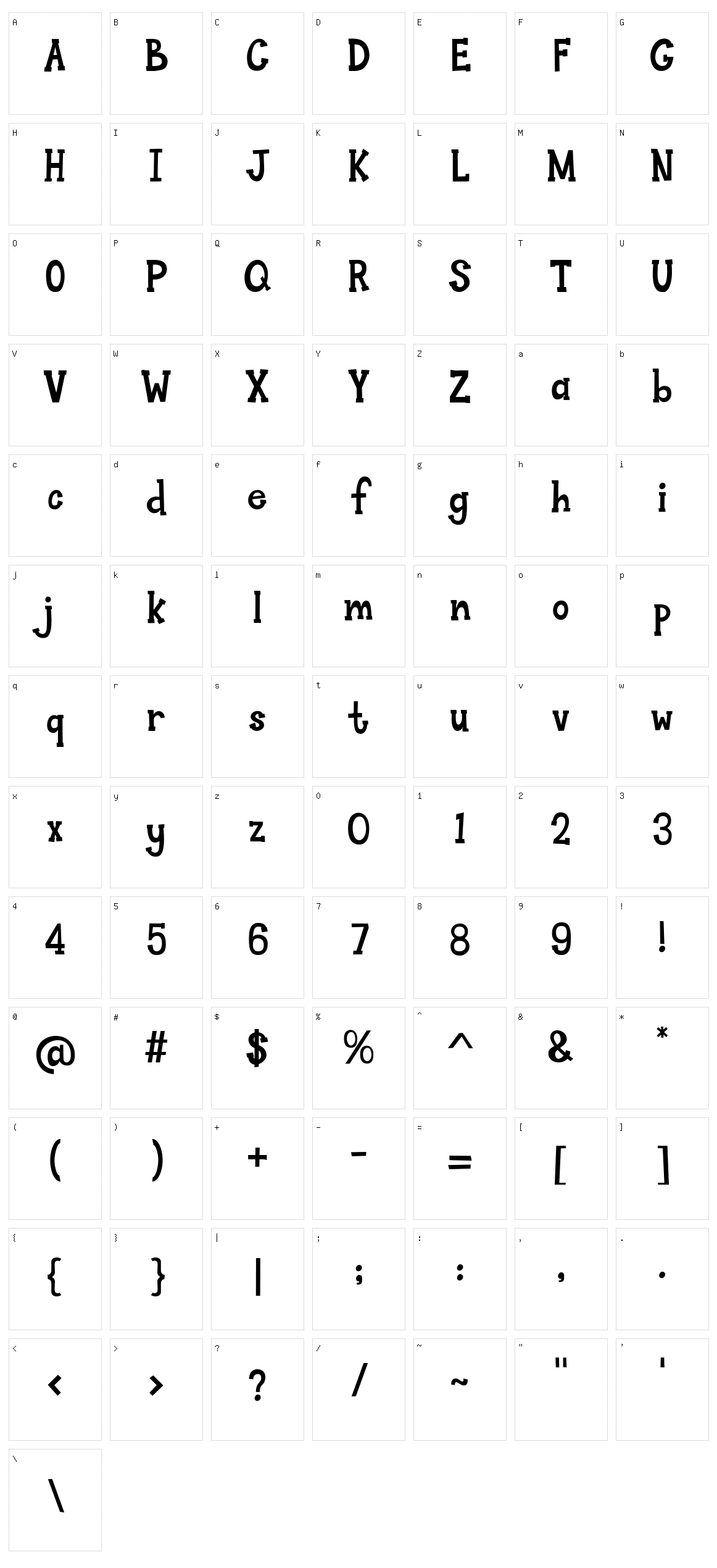
The free font Funny Sports is carefully designed by Qaratype2, showcasing a thoughtful balance of creativity and usability and falls under the Cartoon font style. When you download the ZIP file, it contains only 75.08 KB of font files, making it lightweight and quick to download. Please review the license details below to understand permitted usage and distribution rights. If license information is not available, we recommend using this font for personal projects only or contacting the author directly for commercial usage permissions.